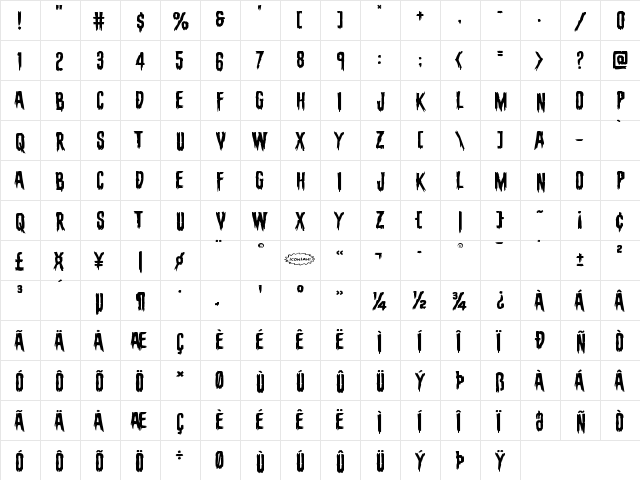
Eva Fangoria Expanded Expanded
Design Context for Eva Fangoria Expanded Typeface
Eva Fangoria Expanded is a composed and adaptable typeface that performs quietly and consistently across a wide range of design contexts.